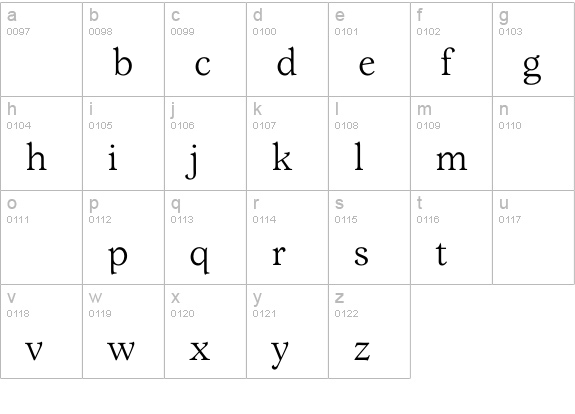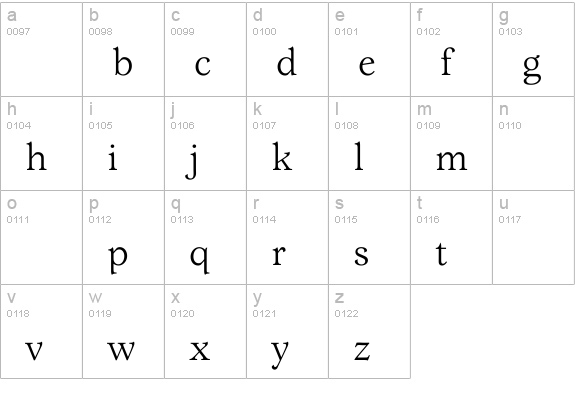
LombaBook Font Details
LombaBook font is a modern and elegant typeface that exudes sophistication and charm. With its clean lines and balanced proportions, LombaBook is perfect for a wide range of design projects, from branding and marketing materials to editorial layouts and websites. This versatile font offers a timeless appeal that is sure to make your text stand out. The best part? LombaBook font is completely free to download at FontsMarket.com. So whether you're a seasoned designer looking to add a new font to your collection or a novice just starting out, LombaBook is a fantastic choice that won't cost you a thing. Download it today and elevate your designs with this beautiful and versatile typeface.